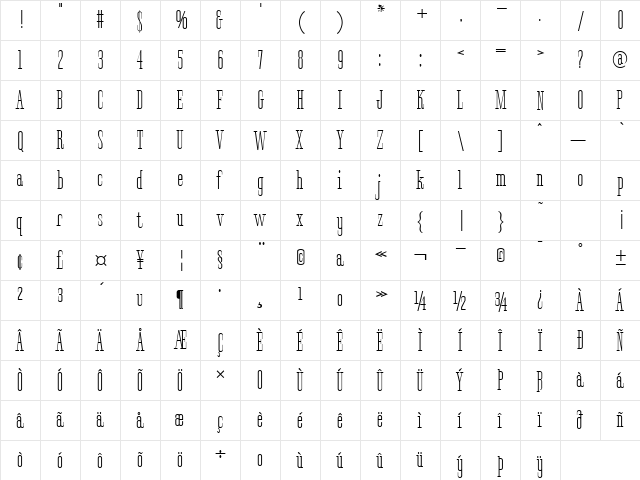
Fiancee Regular
Design Context for Fiancee Typeface
Fiancee takes a measured approach to typography — its balanced proportions and neutral character make it a reliable workhorse for both digital and print work.